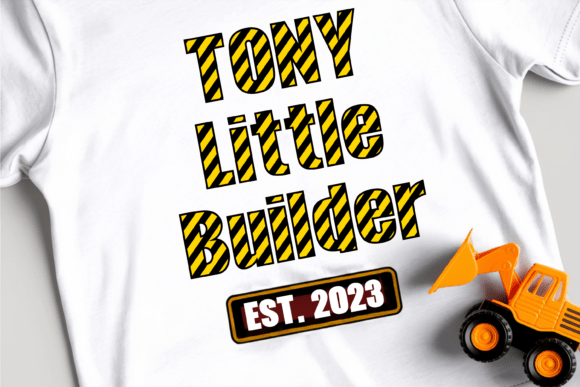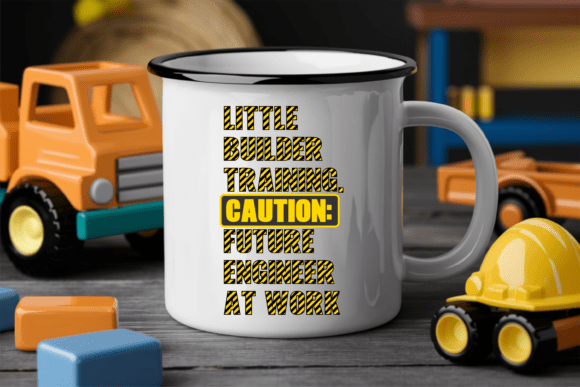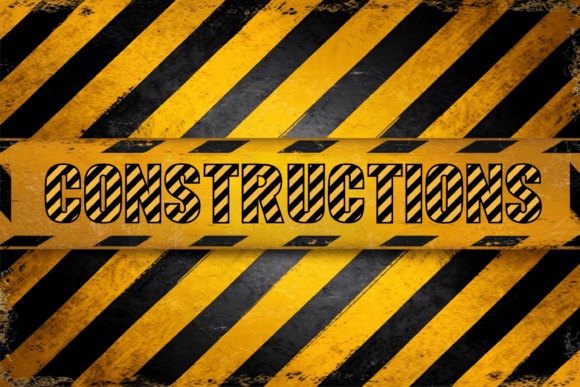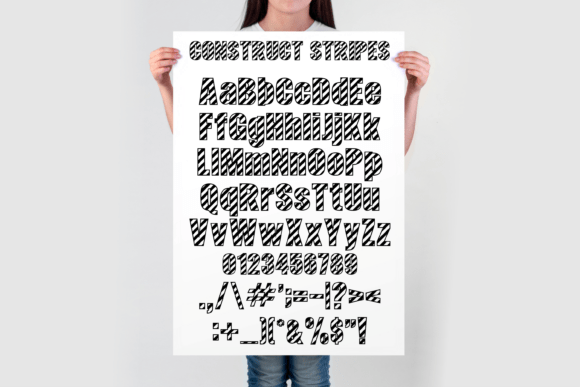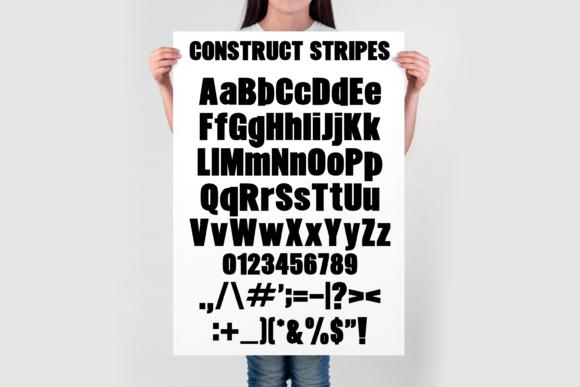
Introducing the Construction Bundle Font: A Bold and Creative Typeface for Your Next Project
Are you looking for a font that can add a touch of construction site excitement to your designs? Look no further than the Construction Bundle Font! This bold, creative typeface is inspired by the sights and sounds of construction sites, making it perfect for a wide range of projects, from kids’ birthday themes to engineering designs.
What Makes the Construction Font So Special?
The Construction Font is a unique and eye-catching typeface that features bold block lettering with a caution stripe style. This makes it ideal for creating attention-grabbing signs, banners, invitations, and personalized gifts. The font’s construction-inspired design also makes it perfect for kids’ builder-themed projects, under-construction party decor, and construction-inspired merchandise.
Perfect for Crafters and Designers
Endless Project Possibilities
The Construction Bundle Font is perfect for a wide range of projects, including:
- Kids’ birthday party themes and decorations
- Construction parties and events
- Vinyl decals and stickers
- T-shirts and apparel
- Engineering designs and projects
- Signs and banners
- Personalized gifts and merchandise
- DIY crafts and printables
- Sublimation designs and products
Why Choose the Construction Bundle Font?
There are many reasons why the Construction Bundle Font is a great choice for your next project. Here are just a few:
- Unique and eye-catching design: The Construction Font features a bold, creative design that’s sure to grab attention.
- Perfect for kids’ projects: The font’s construction-inspired design makes it perfect for kids’ birthday party themes and projects.
- Great for DIY crafting: The font is ideal for DIY crafting, printables, and sublimation designs.
Tips for Using the Construction Bundle Font
Here are a few tips for getting the most out of the Construction Bundle Font:
- Experiment with different colors and designs: The Construction Font looks great in bold, bright colors, so don’t be afraid to get creative!
- Use it for kids’ projects: The font’s construction-inspired design makes it perfect for kids’ birthday party themes and projects.
- Pair it with other fonts: The Construction Font pairs well with other bold, sans-serif fonts, so try experimenting with different combinations.
The Construction Bundle Font is a bold, creative typeface that’s perfect for a wide range of projects, from kids’ birthday themes to engineering designs. With its caution stripe style and bold block lettering, this font is ideal for creating attention-grabbing signs, banners, invitations, and personalized gifts. Whether you’re a crafter or designer, this font is a versatile and compatible choice that’s sure to add a touch of construction site excitement to your designs.